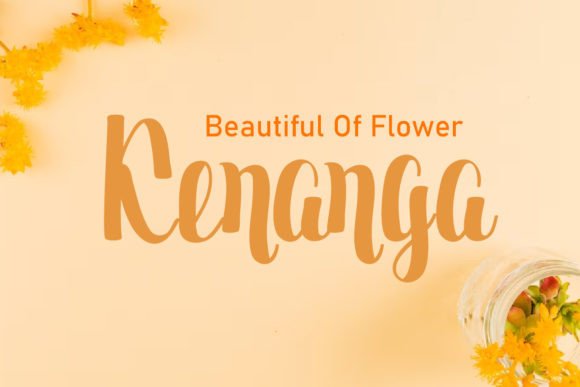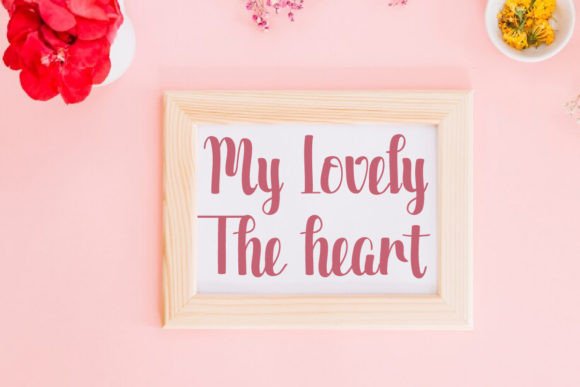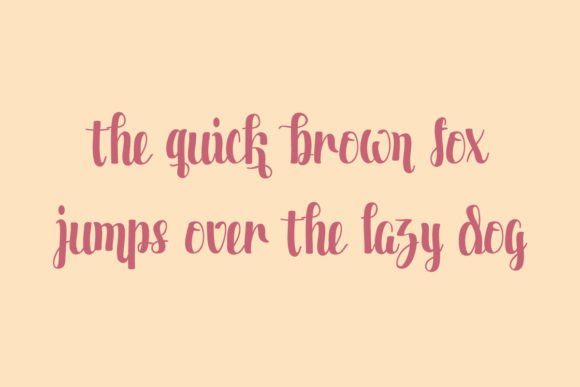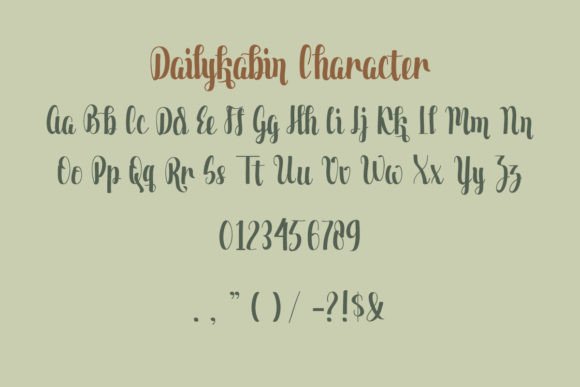
Introduction to Dailykabin Font
Have you ever stared at a blank canvas, eager to bring your creative vision to life? For designers, finding the perfect font can be the key to unlocking that spark of inspiration. One such gem is the Dailykabin Font, a beautiful half script that’s perfect for a variety of creative projects.
With its unique blend of elegance and playfulness, Dailykabin Font is an excellent design resource for anyone looking to add a touch of sophistication to their work. Whether you’re creating posters, logos, or invitation cards, this high-quality font is sure to elevate your design to the next level. And the best part? It’s available for free download, complete with a transparent background, making it easy to integrate into your design.
- Unique characteristics include its clean and minimalist design, making it perfect for logos, typography, and branding materials.
Honest Review: Dailykabin Font
I recently stumbled upon the Dailykabin Font and was immediately drawn to its unique aesthetic. As a designer, I’m always on the lookout for high-quality design resources that can elevate my creative projects.
What works well with the Dailykabin Font is its versatility. It’s suitable for a wide range of applications, from digital design to print materials. The font’s clean and modern lines make it an excellent choice for creating a professional look.
- ✨ Unique and modern design aesthetic
- ✨ Suitable for various design applications, including digital and print materials
However, I did encounter a few limitations. The font’s transparent background can sometimes be a bit tricky to work with, especially when using it on dark-colored backgrounds.
- ⚠️ May require adjustments when using on dark-colored backgrounds
- ⚠️ Some users may find the font’s unique design style to be too unconventional for certain projects
Overall, I’m impressed with the Dailykabin Font. Its high quality and versatility make it an excellent addition to any designer’s toolkit. While it may have some limitations, I believe it’s well worth the free download.
The Dailykabin Font is a versatile design resource perfect for any creative project. With its high-quality design and transparent background, it’s an ideal choice for designers looking to add a unique touch to their work.
Experiment with different font sizes and styles to achieve the desired look. Use the font in combination with other design elements to create a unique and eye-catching design.
The Dailykabin Font is ideal for use in a variety of creative projects, including:
- Typography projects